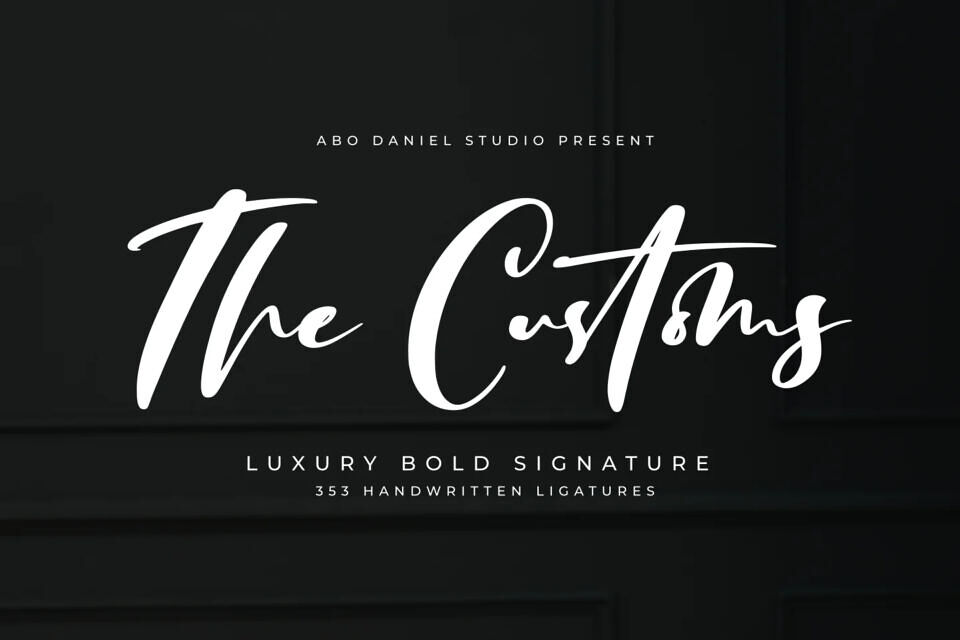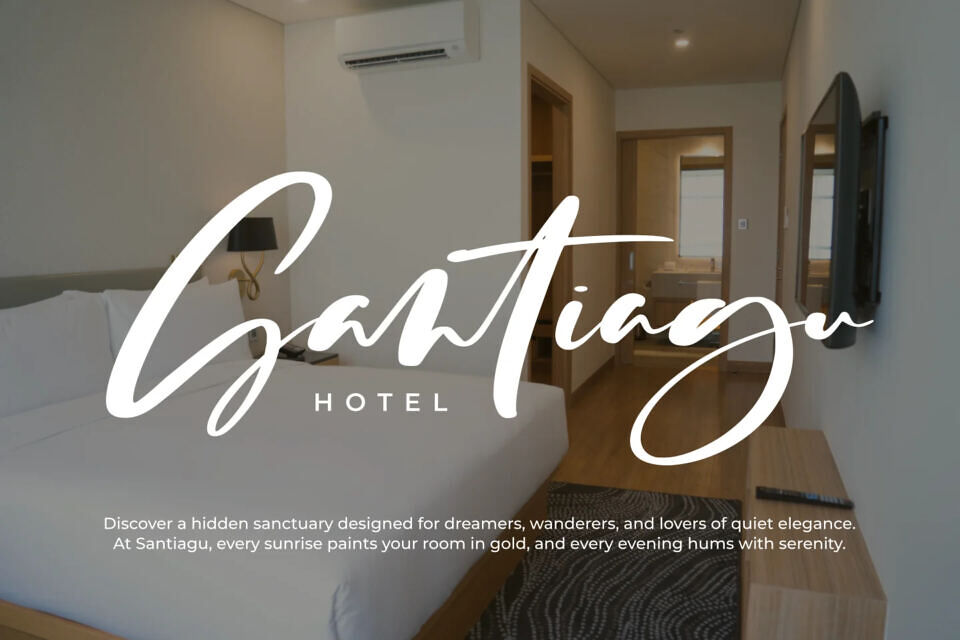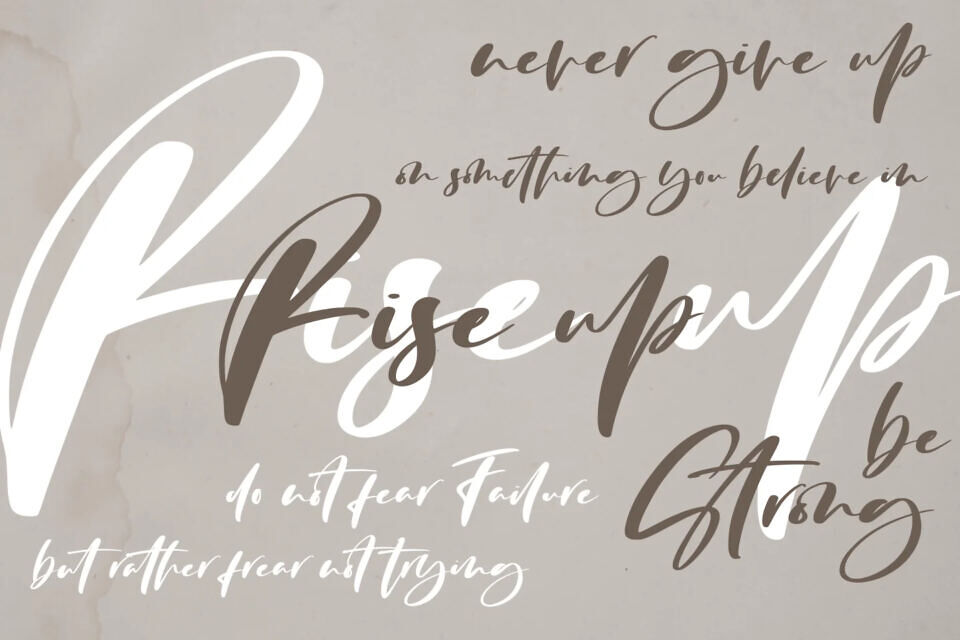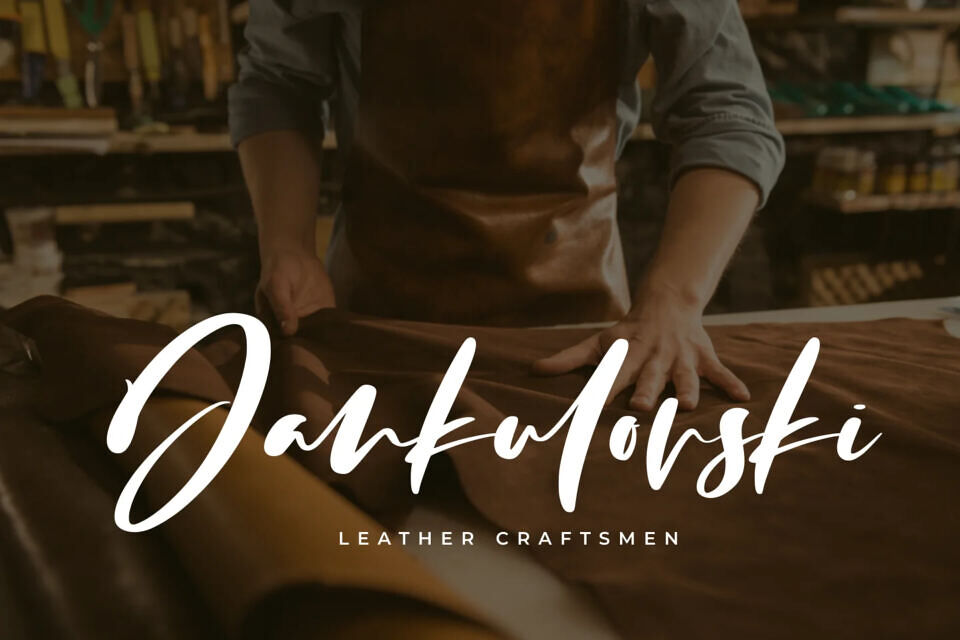
Designed for professional projects, The Customs is a Luxury Bold Signature Font made with an extra careful process.
It’s great for logos, branding, business cards, flyers, posters, photography, t-shirts, watermark, and anything your projects that need elegant touch.